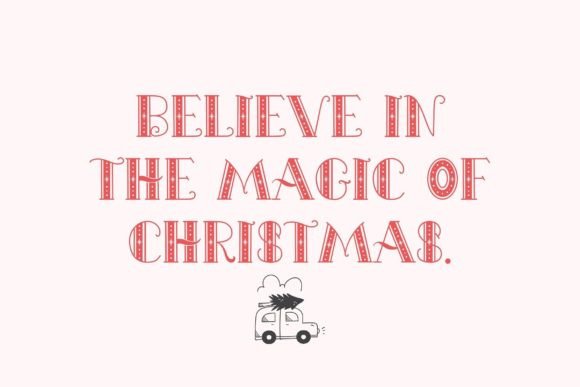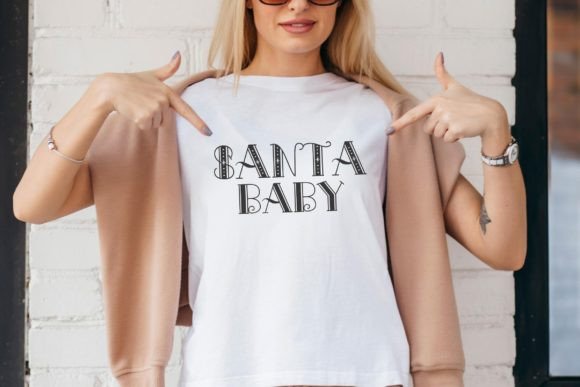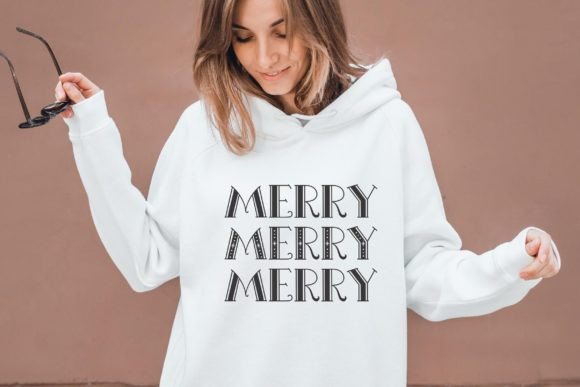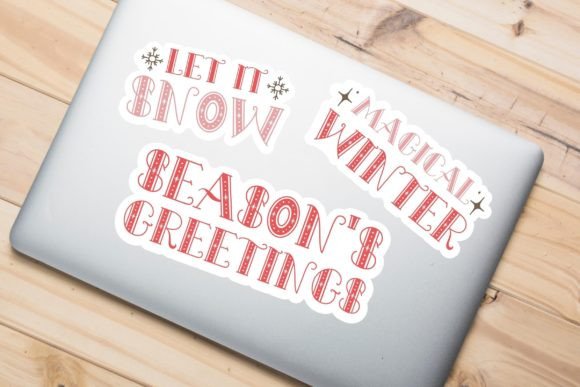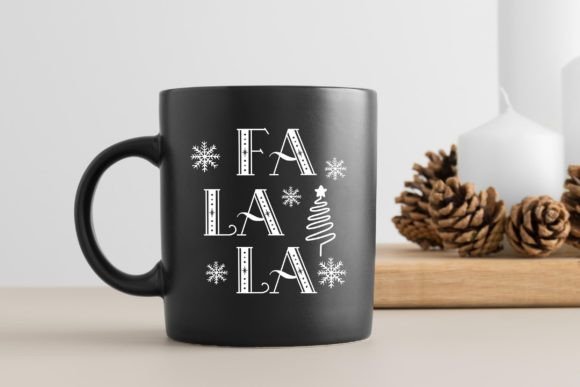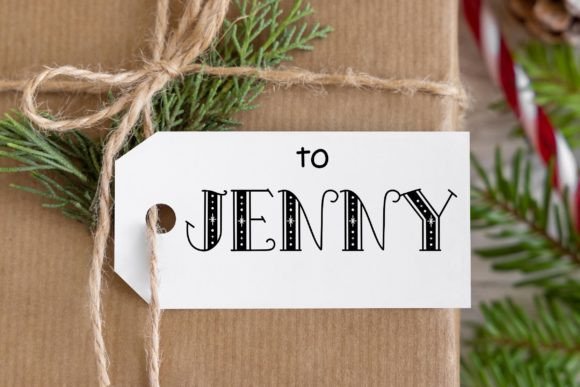
Introducing “Blessed Christmas” – The Ultimate Christmas Display Font for Your Holiday Designs
Are you looking for a Christmas font that can add a playful and festive spirit to your designs? Look no further than “Blessed Christmas”, the perfect display font for all your holiday projects. With its unique features and versatility, this font is sure to bring joy and creativity to your designs, whether you’re a designer, crafter, or simply someone who loves the holiday season.
A Font that Shines with Festive Spirit
“Blessed Christmas” is more than just a font – it’s a design element that can elevate your holiday projects to the next level. Its unique feature of star details in uppercase characters sets it apart from other Christmas fonts, giving you the creative freedom to mix and match between uppercase and lowercase letters to craft new and exciting styles.
Imagine being able to create stunning holiday designs with just a few clicks. With “Blessed Christmas”, you can do just that. Whether you’re designing cheerful shirts, delightful tote bags, festive mugs, charming stickers, memorable logos, engaging social media content, attractive packaging, inspired posters, heartwarming quotes, or captivating wall art, this font is the perfect choice.
The possibilities are endless with “Blessed Christmas”. Here are just a few ideas to get you started:
• Design a festive holiday shirt with a bold, eye-catching headline in “Blessed Christmas”
• Create a set of holiday-themed stickers and decals featuring the font’s playful characters
• Make a heartwarming holiday poster with a mix of uppercase and lowercase letters
• Design a set of holiday-themed social media graphics, including Facebook and Twitter headers
• Make a beautiful holiday-themed wall art piece featuring a special quote or message
Why Choose “Blessed Christmas”?
So why choose “Blessed Christmas” over other Christmas fonts? Here are just a few reasons:
• Unique Design: The font’s star details in uppercase characters give it a unique and festive look that’s sure to stand out
• Versatility: The font’s versatility allows you to mix and match between uppercase and lowercase letters to create new and exciting styles
• Perfect for Designers and Crafters: Whether you’re a professional designer or a crafter, “Blessed Christmas” is the perfect font for all your holiday projects
Get Creative with “Blessed Christmas”
In conclusion, “Blessed Christmas” is the perfect Christmas display font for all your holiday designs. With its unique features, versatility, and ease of use, this font is sure to bring joy and creativity to your designs. Whether you’re a designer, crafter, or simply someone who loves the holiday season, “Blessed Christmas” is the perfect choice. So don’t wait any longer, get creative with “Blessed Christmas” today!